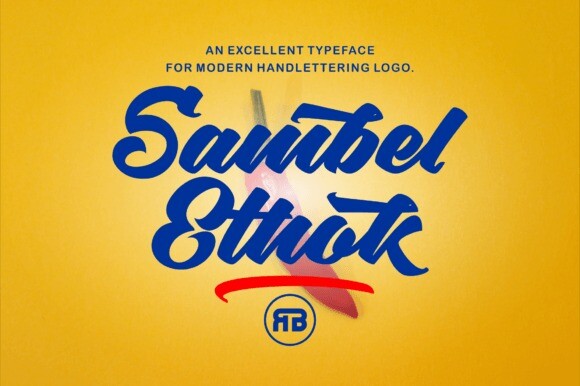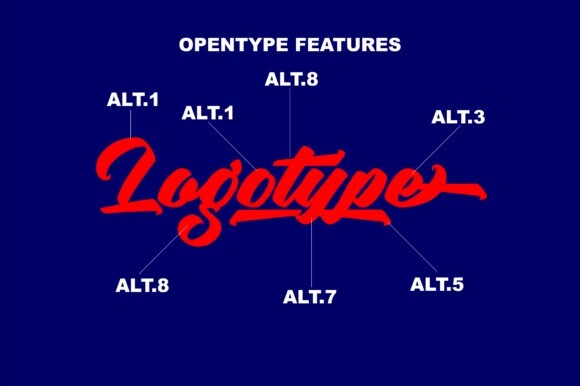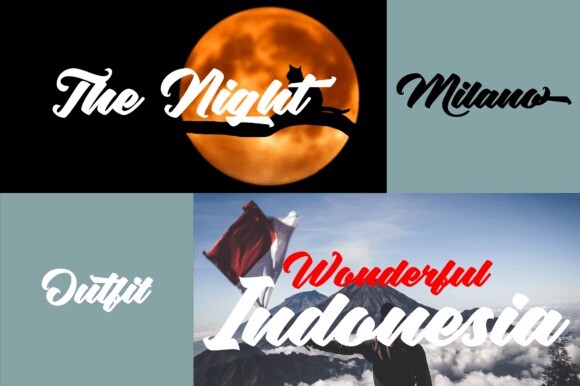
Sambelethok Font
Sambelethok is an excellent font for modern hand-lettered logo designs.
Sambelethok is a font intended for logotype creation, but with its various glyphs, you can also create many other typography designs. This font is great for logotypes, printed quotes, invitations, cards, product packaging, headers, posters, apparel designs, etc.
This font is PUA encoded, which means you can access all of the glyphs and swashes with ease!